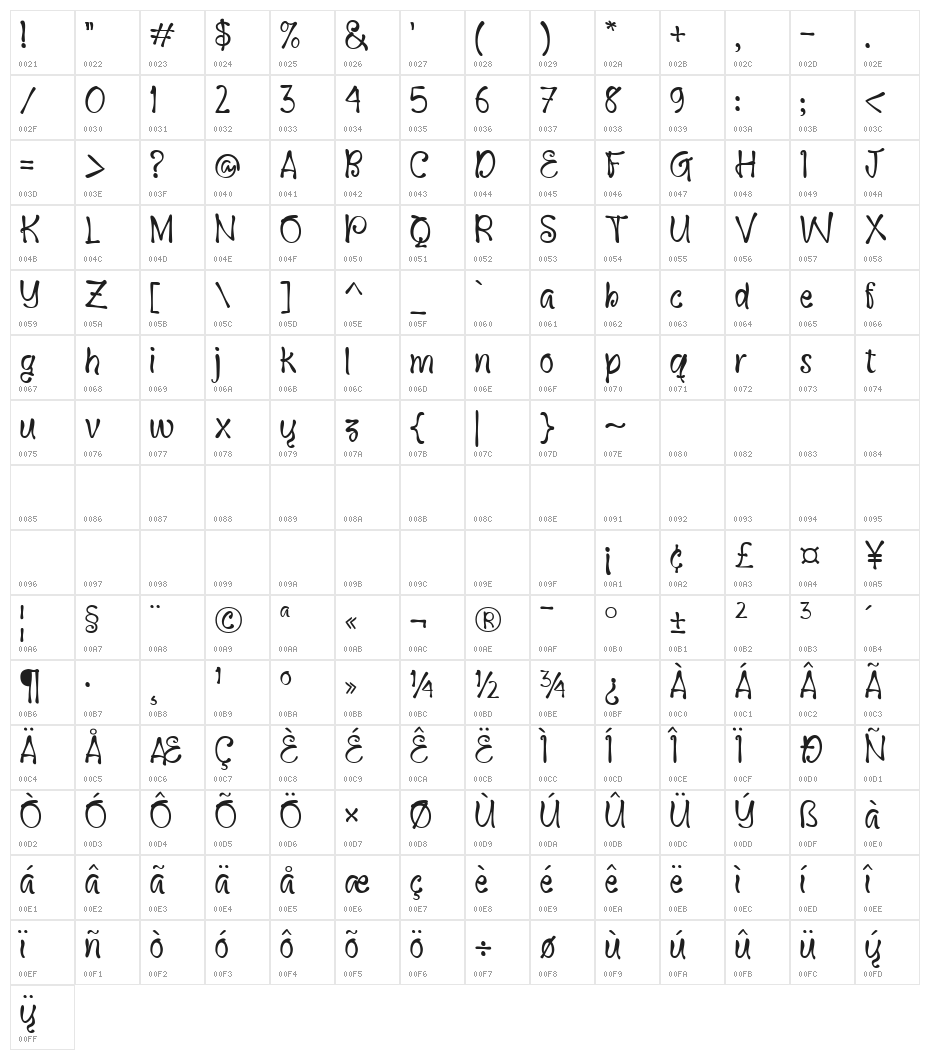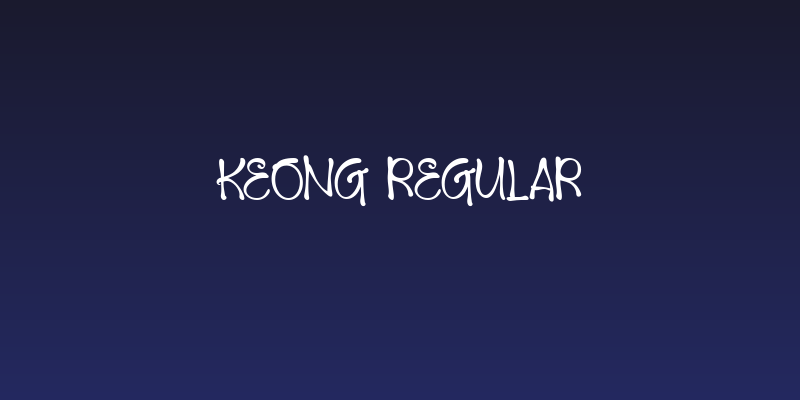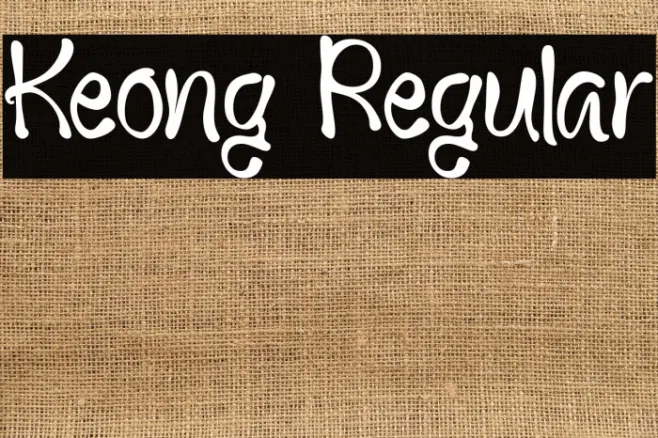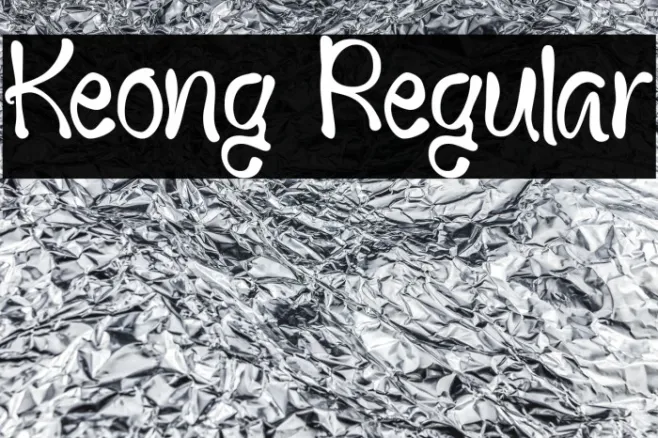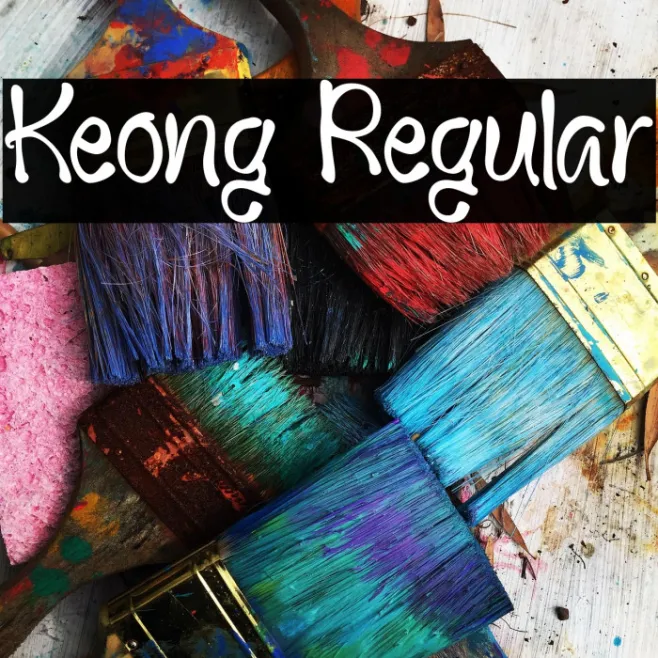
Keong Regular Font
Keong Regular Description
This font features a playful and whimsical design, characterized by its bold and flowing strokes. The letters have a hand-drawn quality, with unique curves and loops that give it a lively and dynamic appearance. The uppercase letters are tall and slightly narrow, while the lowercase letters are more rounded and open. The numbers and special characters maintain the same playful style, making them consistent with the overall look. This font is perfect for projects that require a fun and informal touch, such as children's books, party invitations, or creative branding.
| Proposed Projects | Ideal for children's books, party invitations, creative branding, and playful designs. |